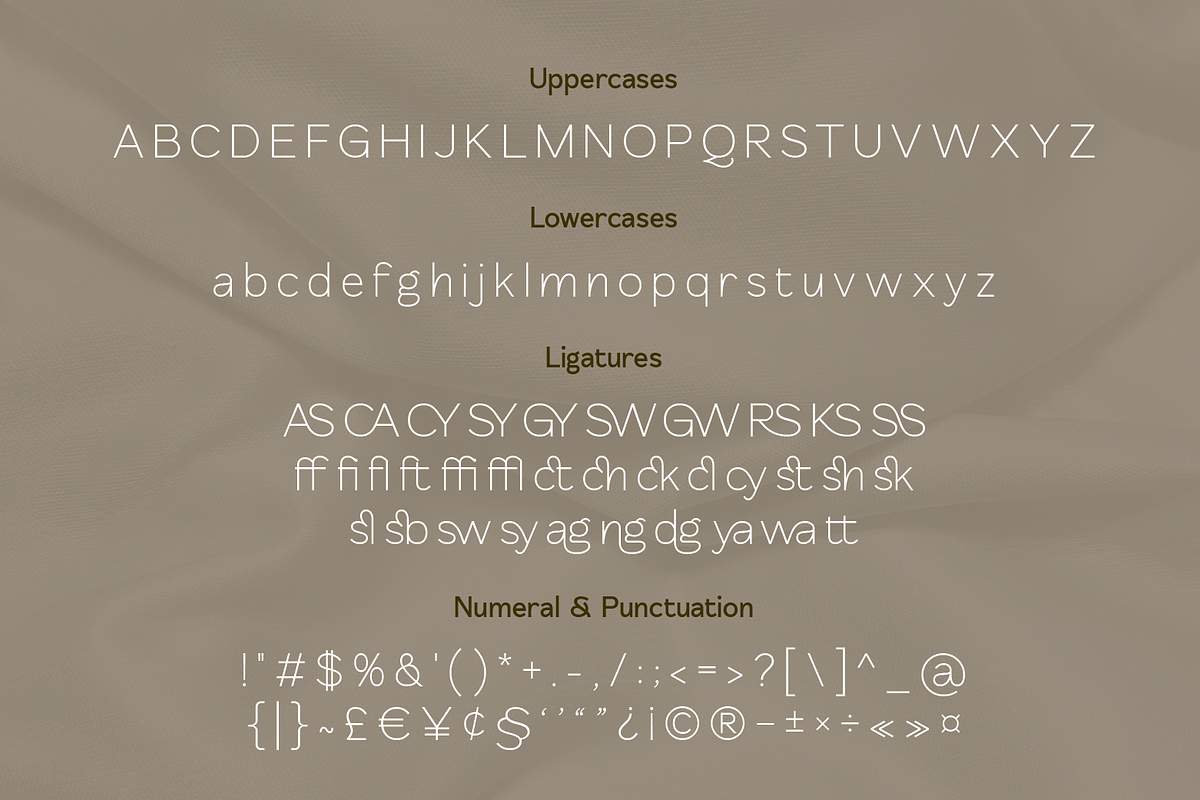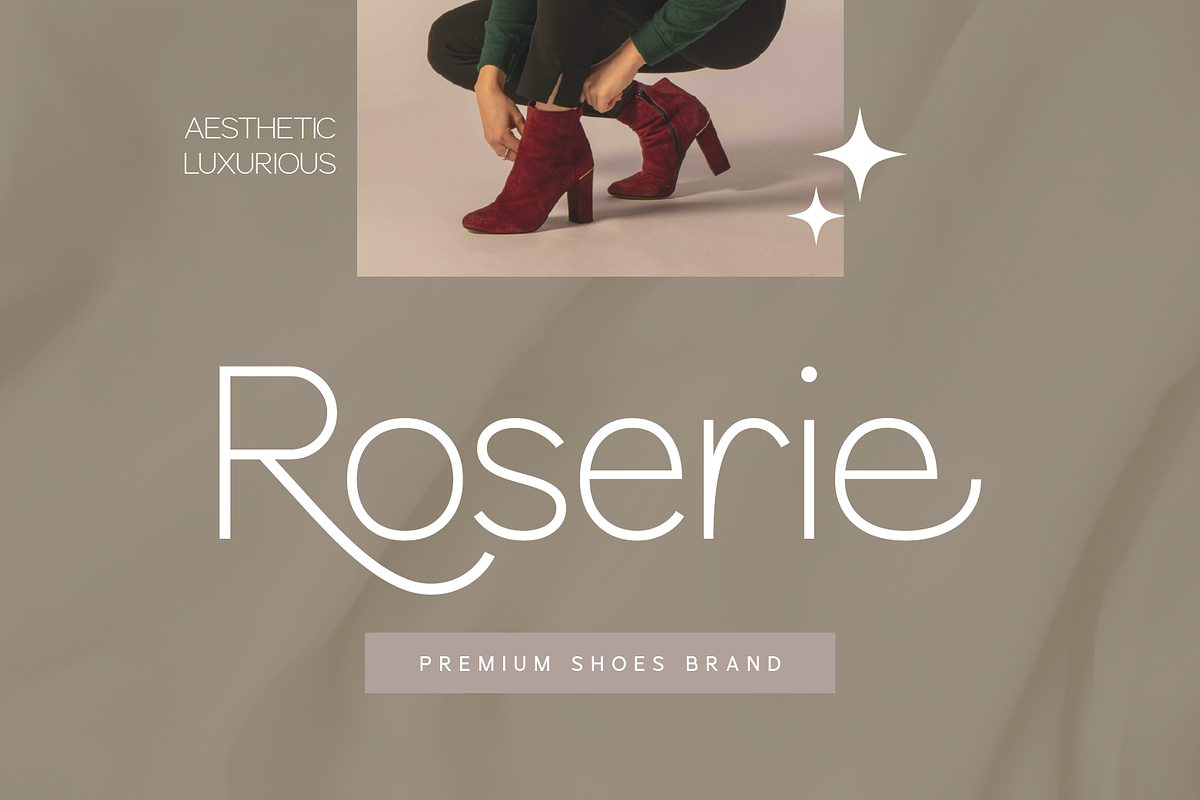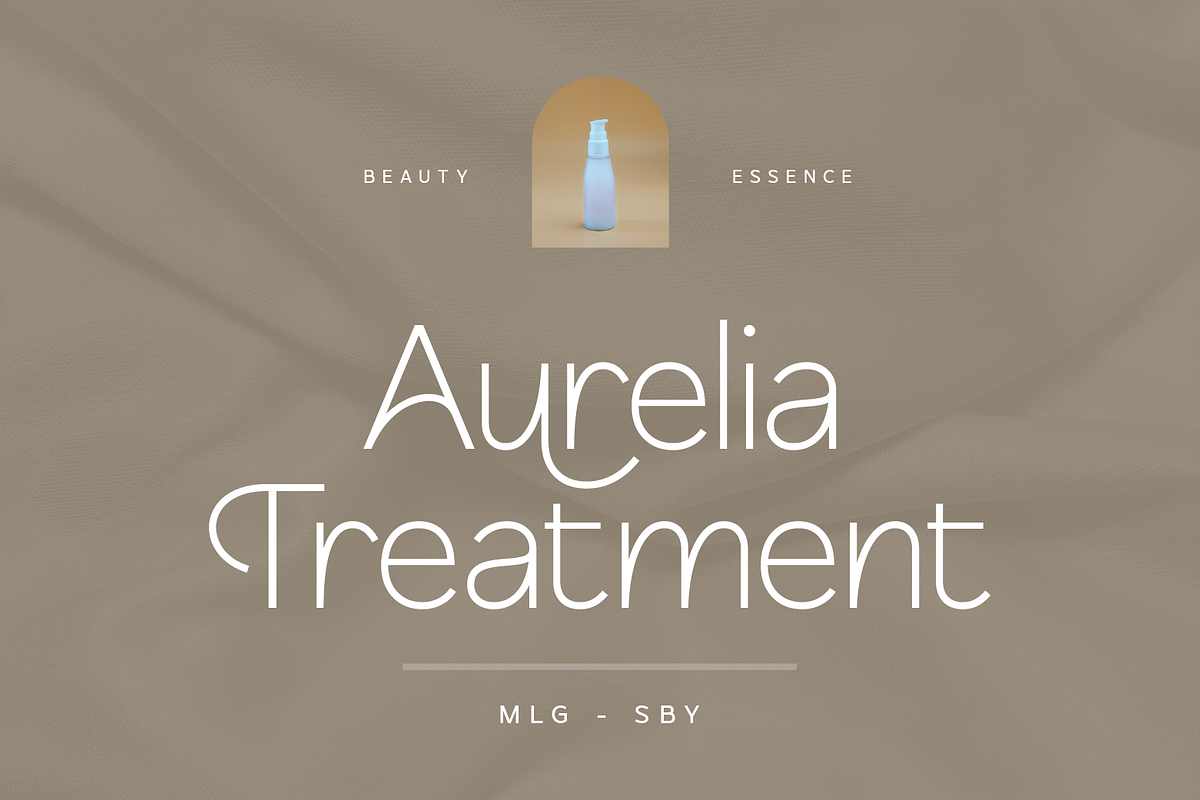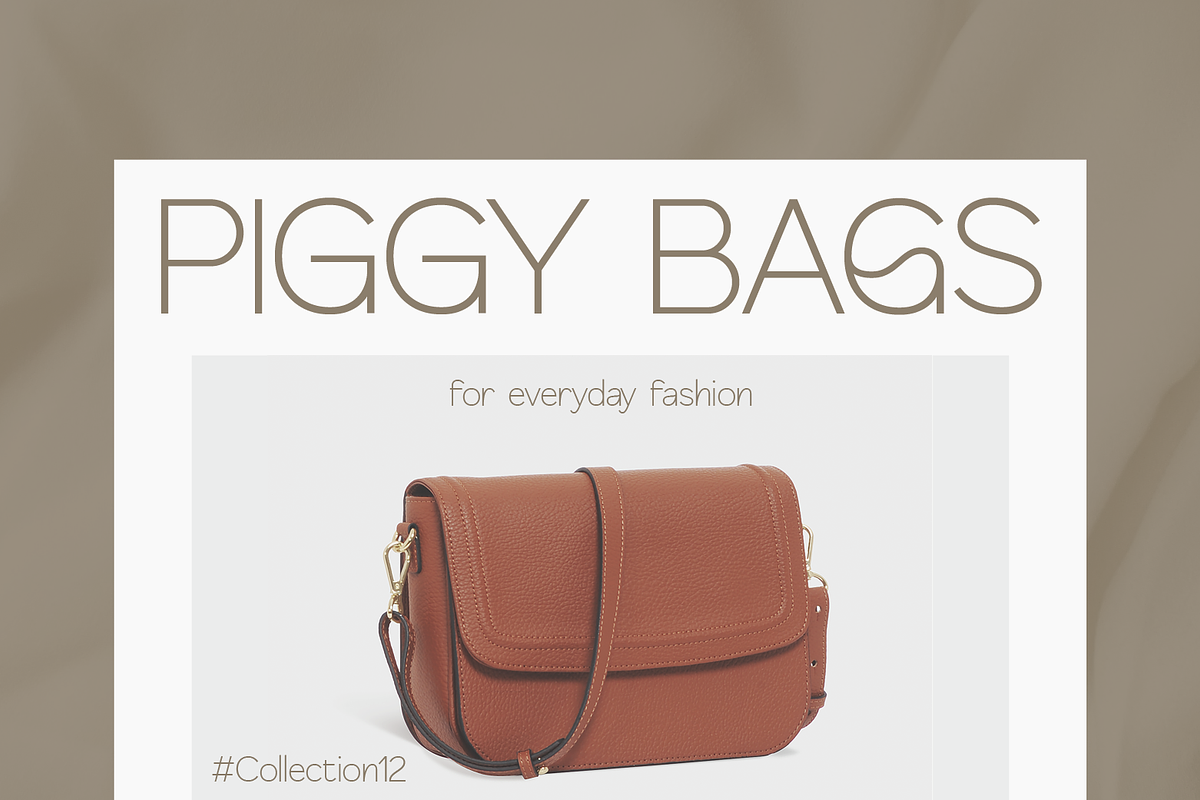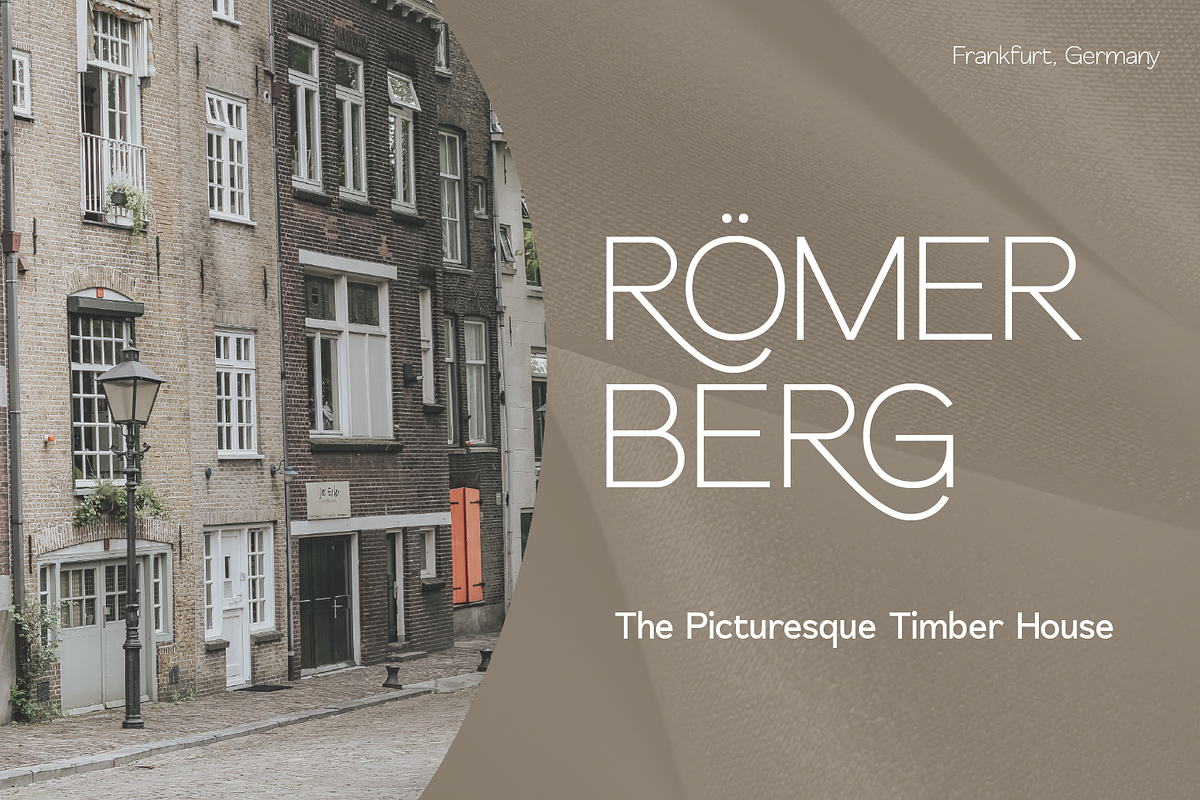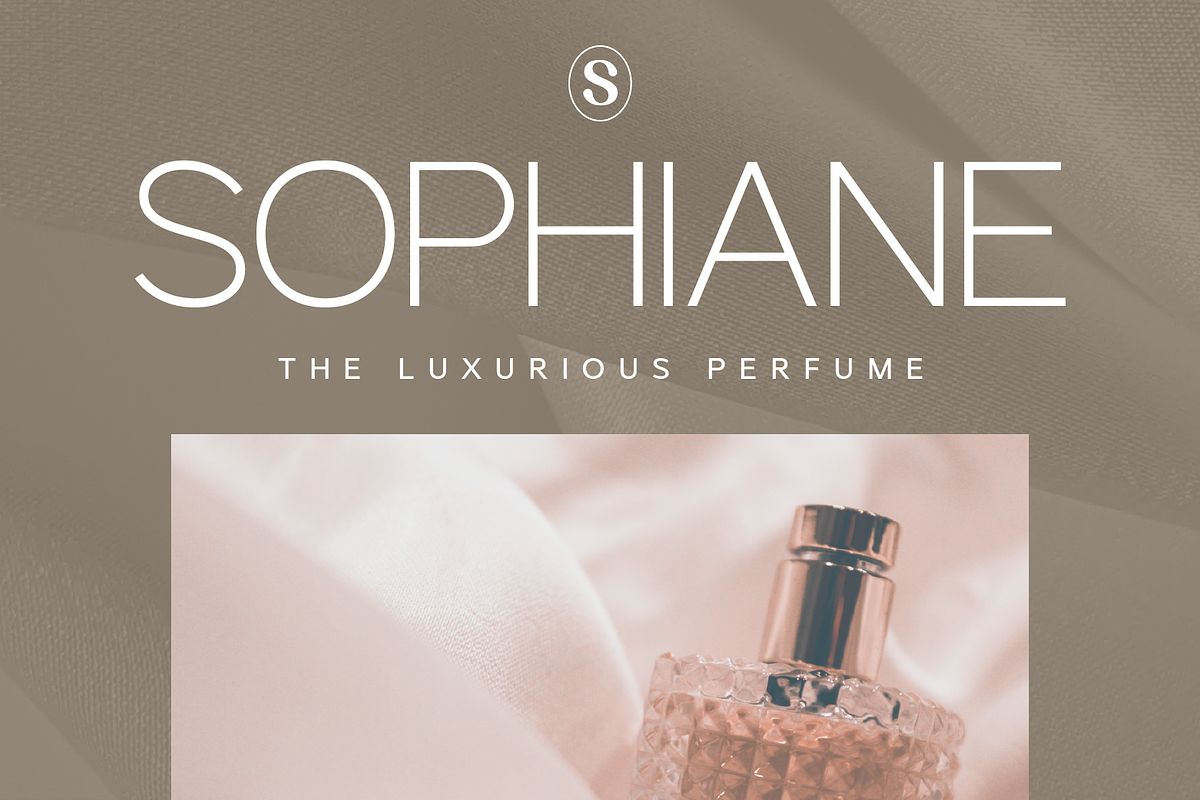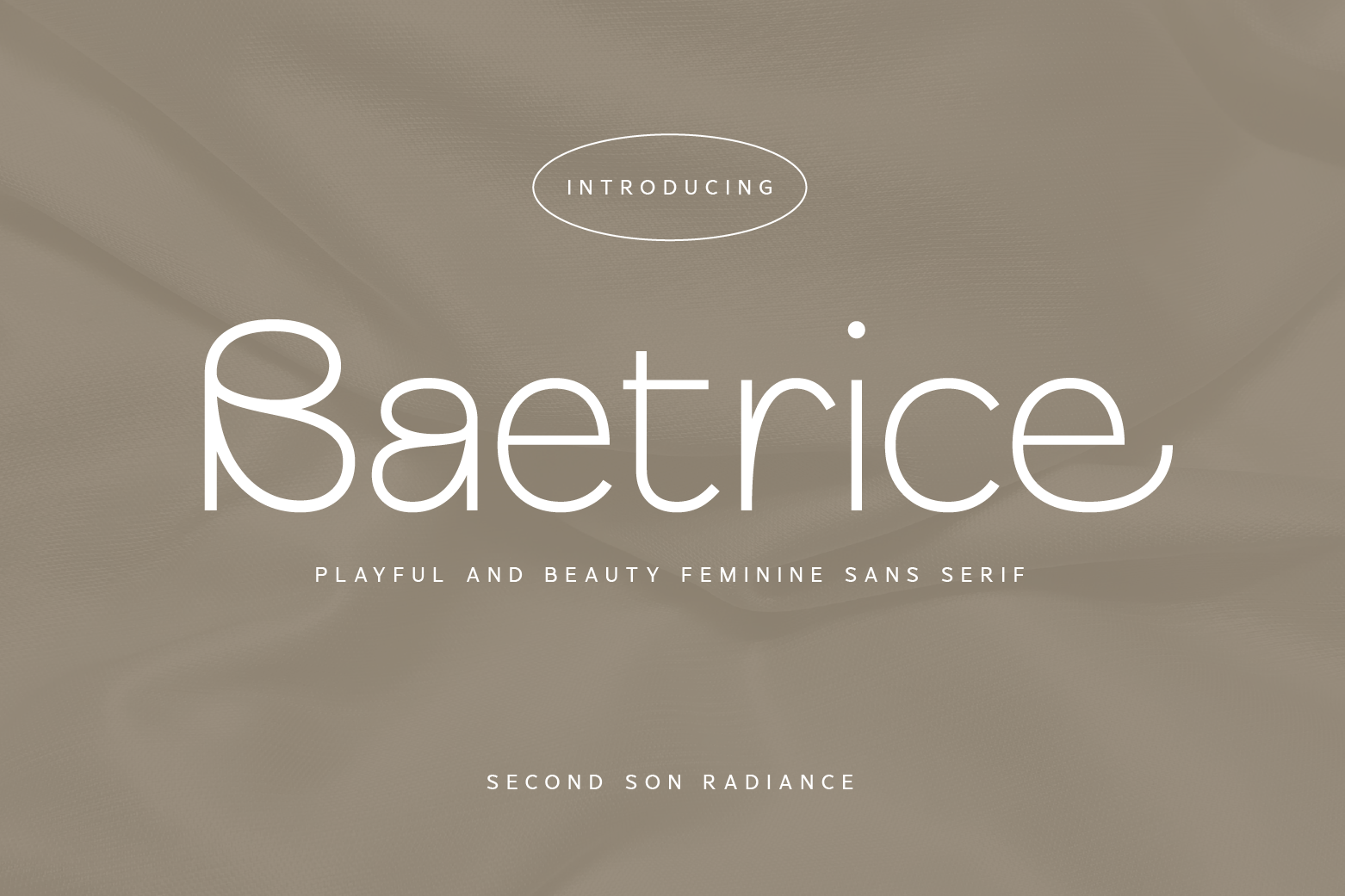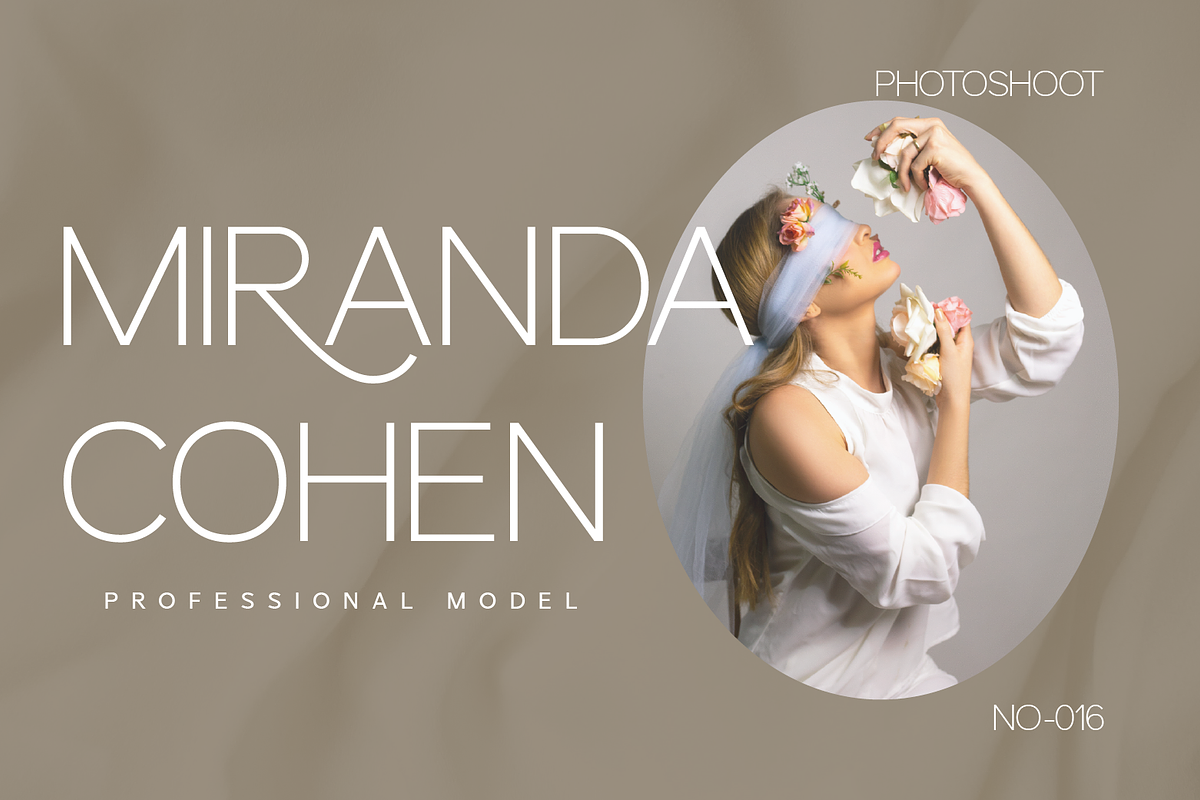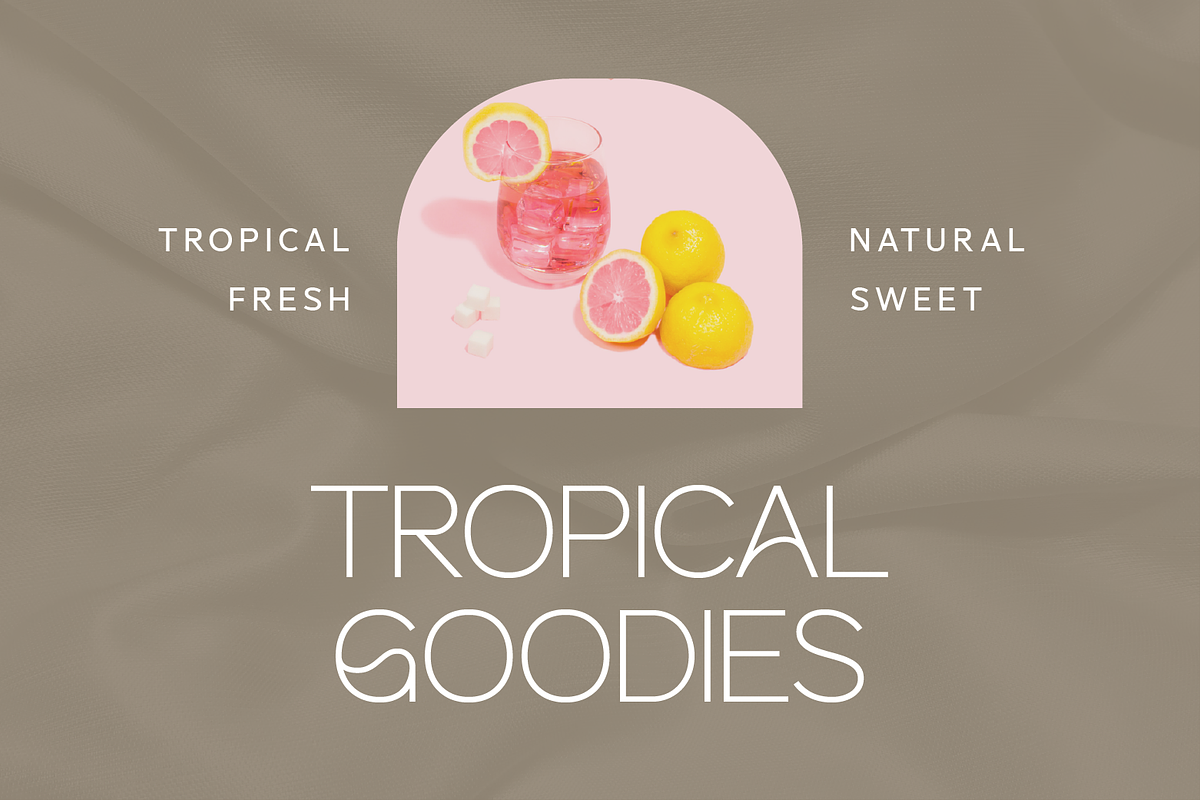
SS Baetrice - Feminine Sans Font
Baetrice - Playful and Beauty Sans - Monoline Sans Serif Font
Baetrice is a beauty feminine and playful sans serif with so much creative design potential, comes with tons of ligatures and alternates for your upcoming project. Such as luxury logo branding, editorial design, stationery design, Elegant Modern Fashion, Salon Beauty, feminine advertising design, blog / website design, card invitation, art quote, home decor, book/cover title, special events ( wedding, birthday, etc ), and any more.
Second Son Radiance Std